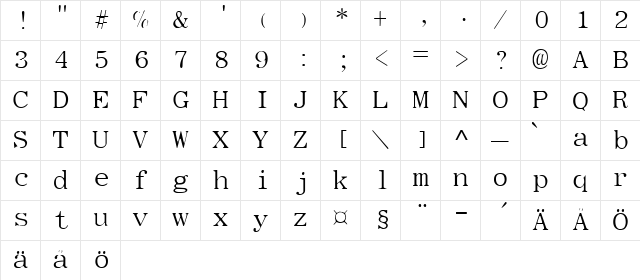
Type Wheel Regular
Design Context for Type Wheel
Type Wheel is a composed and adaptable typeface that performs quietly and consistently across a wide range of design contexts.